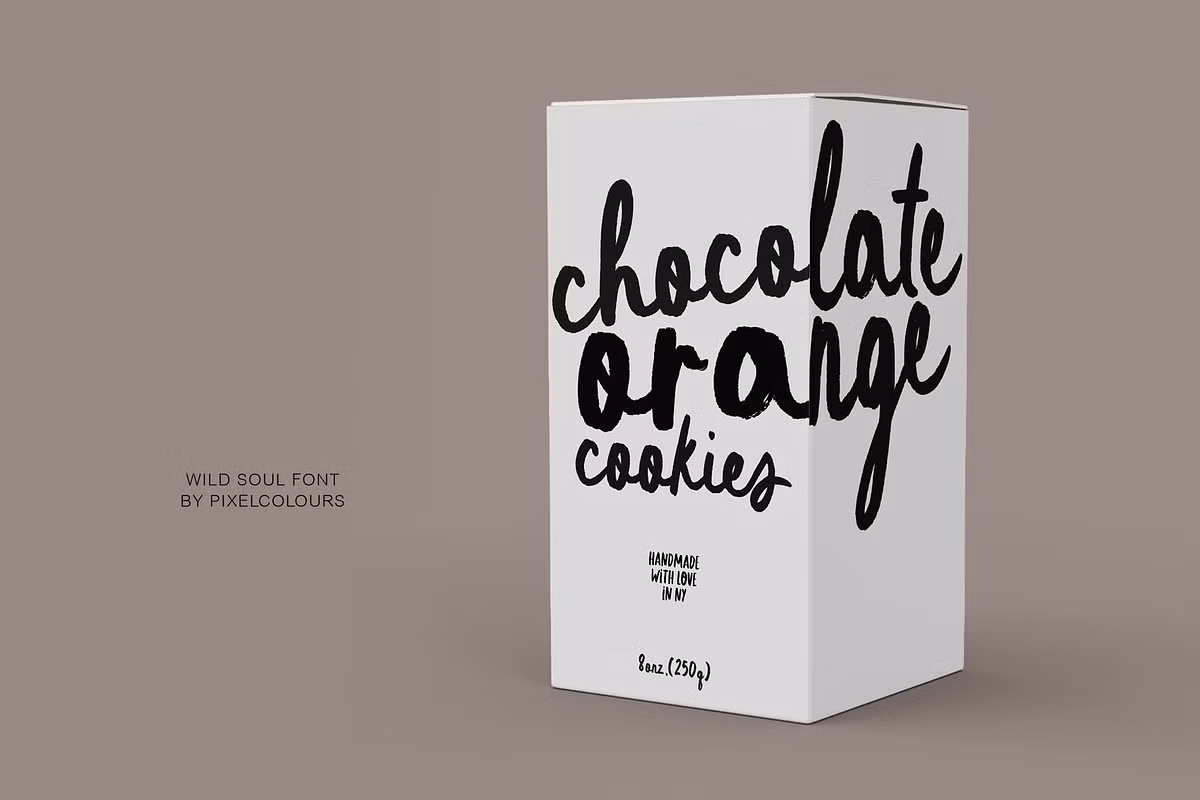
Script Brush Font Duo Wild Soul: Handwritten Font Pair for Artsy Designs
The Wild Soul font is really something special – it’s like a work of art. This handwriting font duo is all about capturing the feeling of something handmade and unique. If you’re a designer looking to add a personal touch to your projects, this font is a must-have. It’s got a really organic feel to it, with lines that aren’t perfect and a subtle texture that gives it a lot of character. Whether you’re working on a design that needs to feel creative and artistic, or just want to add a bit of personality to your work, Wild Soul is a great choice. It’s perfect for all sorts of designs, from stuff that’s really artistic and out there, to more simple projects that just need a little something extra. Overall, the Wild Soul font is a beautiful thing – it’s like a breath of fresh air for your designs.
The Wild Soul font duo has a really nice script font that’s one of a kind. The main font, Wild Soul, looks like it was drawn by hand, which gives it a lot of character. This style is great for showing feelings and making your projects feel more personal. The texture is subtle, but it makes the font look like it was actually written by hand, which is a nice touch. It’s like having a little piece of art in your design. The Wild Soul font is perfect for adding a touch of warmth and emotion to your work, making it stand out in a beautiful way.
Wild Soul has more to offer than just its beautiful script font – it also comes with a special dingbats font called Wild Soul Extras. This extra font is full of fun doodles and decorative elements that can really make your typography stand out. You can mix and match these playful illustrations with the script font to create designs that are super visually appealing, especially to people who love art. The possibilities are endless, and with Wild Soul Extras, you can add a unique touch to your designs that will really make them pop. Whether you’re looking to create something elegant or playful, this font has got you covered. So why not get creative and see what amazing designs you can come up with using Wild Soul and its extras?
Character Sets
The Wild Soul font is really special because it has a huge collection of characters that can be used to write in many different languages. This makes it perfect for projects that involve people from all around the world. What’s more, the characters are designed to look like they were written by hand, so they all connect nicely and look really smooth. This means that when you use Wild Soul to write something, it will look like you wrote it yourself, rather than a computer doing it. It’s a great choice for anyone who wants their writing to look personal and unique.
The dingbats font, Wild Soul Extras, adds an additional layer of creativity with its array of decorative doodles. These embellishments can be used to accentuate quotes, headings, or any text element in your design, allowing for endless customization possibilities.
Wild Soul is an incredibly versatile font duo that can be used in various applications. Here are some of the most popular use cases:
- Wild Soul has a natural feel to it, which makes it perfect for labeling products that are handmade or good for the environment. It’s a great fit for brands that want to seem earthy and authentic, like those that make food or crafts by hand.
- Movie Posters: Capture the essence of creativity and emotion in your film promotional materials with Wild Soul’s expressive typography.
- Art Posters: Create stunning art prints that resonate with viewers by using the handwritten style of Wild Soul to showcase quotes or artistic expressions.
- Logo Design: Craft memorable logos that stand out with a personal touch, utilizing the unique characteristics of Wild Soul.
- Social Media Posts: Enhance your social media graphics with the addition of Wild Soul’s doodles, making your posts more engaging and visually appealing.
When using the Wild Soul font duo, pairing it with complementary typefaces can elevate your designs even further. Here are some suggestions:
- When you’re looking to pair fonts with Wild Soul, try matching it with a simple sans serif font like Montserrat or Open Sans. This combination creates a modern look that really brings out the creative side of Wild Soul. The clean lines of the sans serif font provide a nice contrast to the more artistic feel of Wild Soul, making your design stand out.
- Serif Fonts: Combining Wild Soul with a classic serif font like Playfair Display can create an elegant and sophisticated look, perfect for formal invitations or high-end branding.
- If you’re into the whole handwritten look, you might want to try pairing Wild Soul with a different script font, like Pacifico or Great Vibes, to add some visual interest to your text. This can help create a sense of hierarchy, making your words stand out in a really cool way.